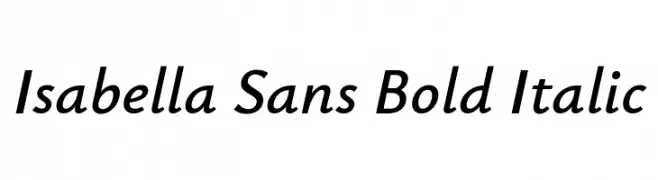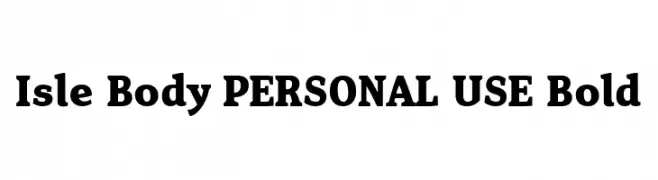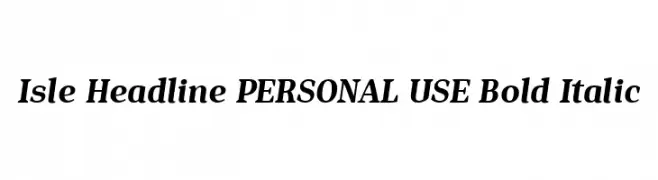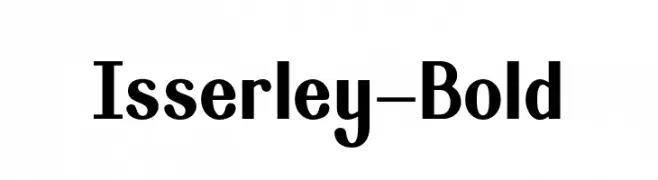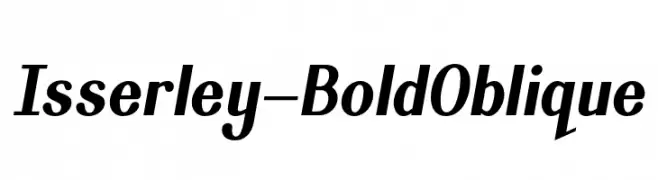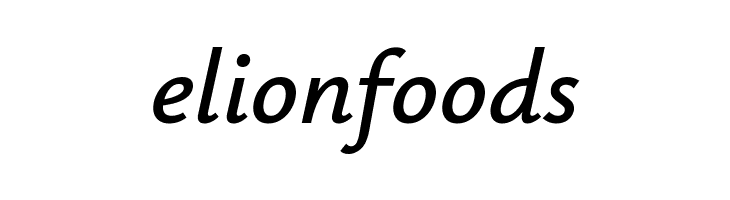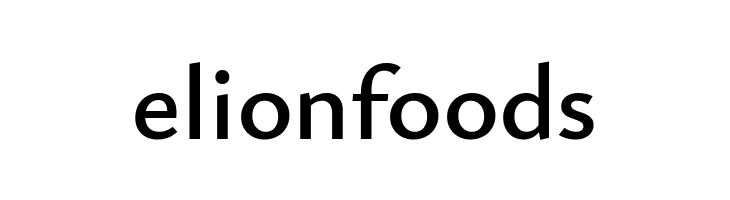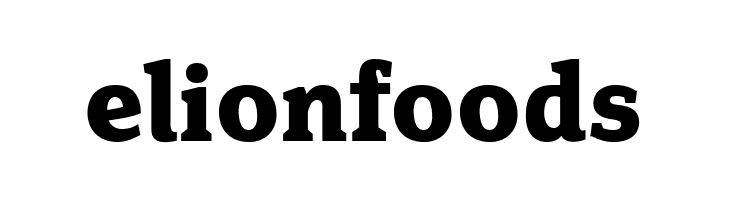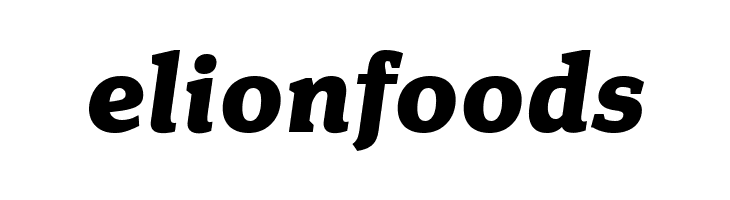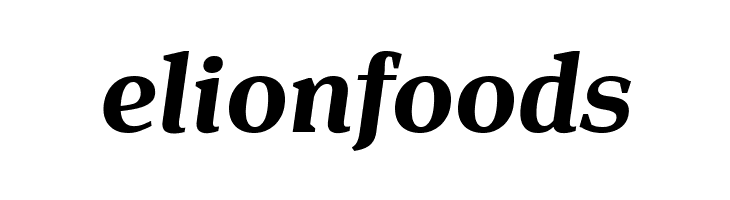
• Isabella Sans Bold
A bold, modern sans-serif font with clean lines and excellent readability.
• Isabella Sans Bold Italic
A bold, italicized modern sans-serif font with sleek, dynamic characters.
• Isabelle Layne Bold
A playful, modern handwritten font with tall, narrow characters and rounded edges.
• Isle Body PERSONAL USE Bold
A bold, robust font with strong strokes and a modern yet timeless style.
• Isle Body PERSONAL USE Bold Italic
A bold, italic font with a dynamic and elegant style.
• Isle Headline PERSONAL USE Bold
A bold serif font with a classic and authoritative style.
• Isle Headline PERSONAL USE Bold Italic
A bold, italic font with strong strokes and a modern classic style.
• isometric bold Regular
• Isserley-Bold
A bold, modern serif font with strong, thick strokes.
• Isserley-BoldOblique
A bold and oblique font with strong, dynamic strokes and excellent readability.